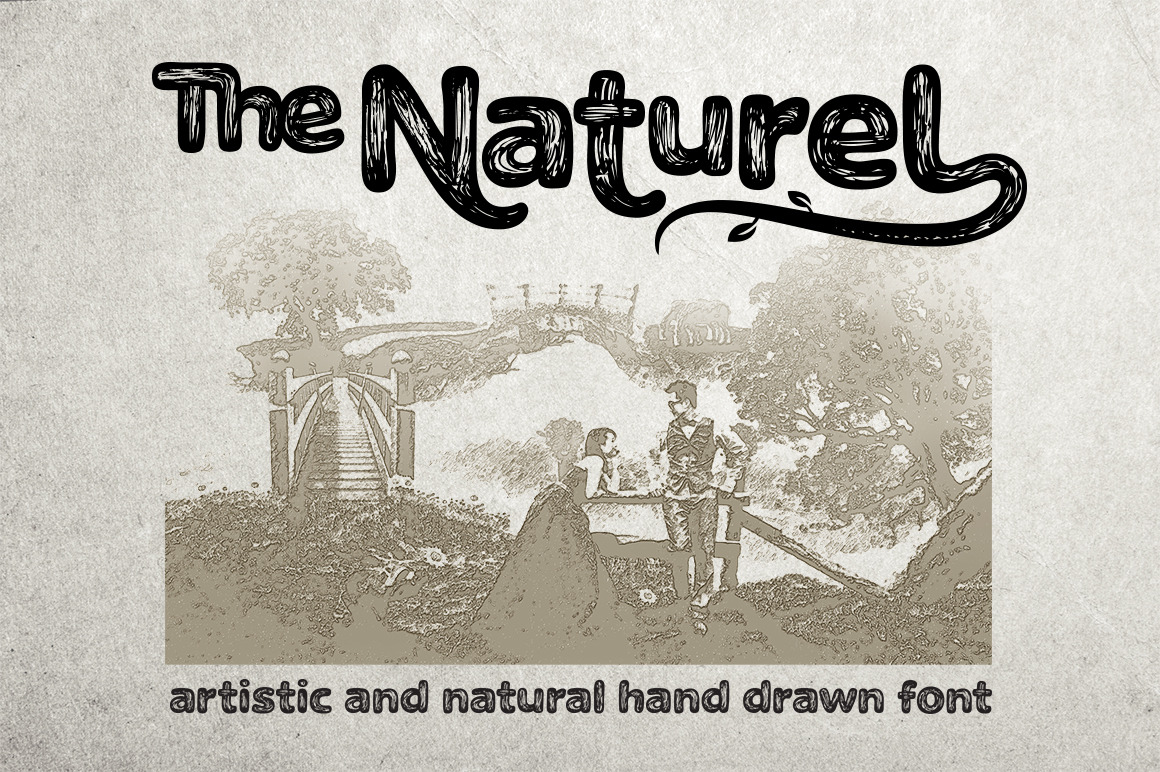
The Naturel Font
The Naturel is hand made modern sans serif font. Based on natural wood textured inspiration, Each glyph made manually one by one with very diligent and consistency. Good use for poster title, logotype, fairy tales, children book, natural product or brand, or any graphic design projects.
The Naturel comes with alternate upper and lowercase characters, and supports international languages. Font features : Characters set A-Z, a-z, Numerals & Punctuations (OpenType Standard), Accents (Multilingual characters), Alternates, and Ligatures.